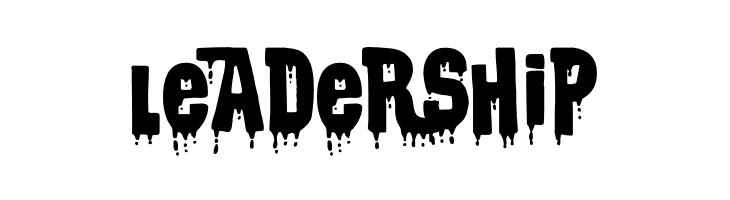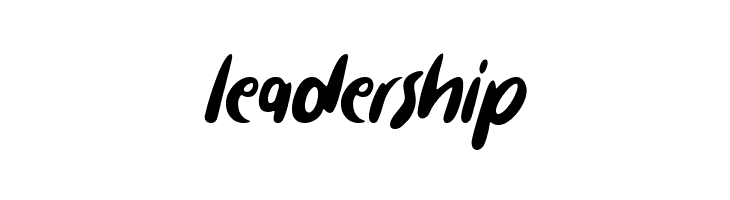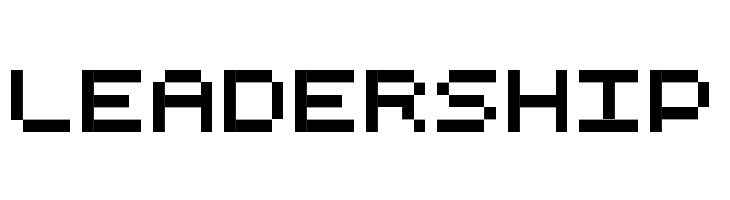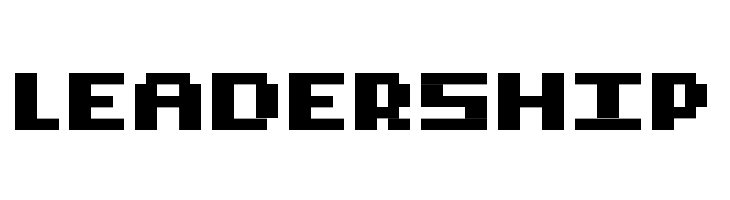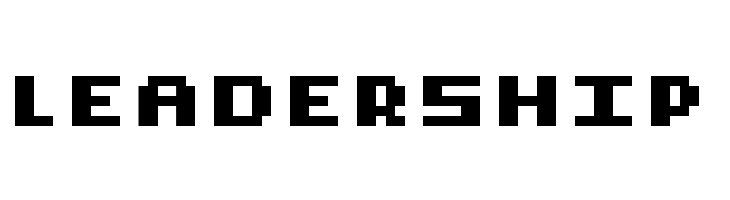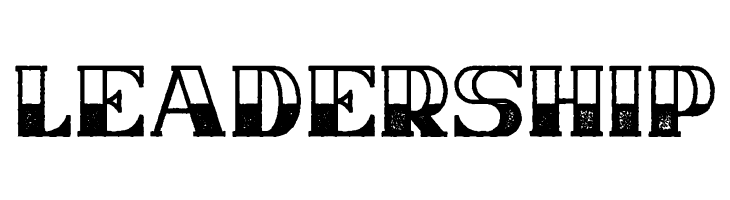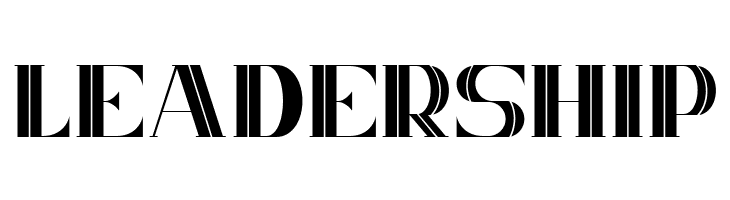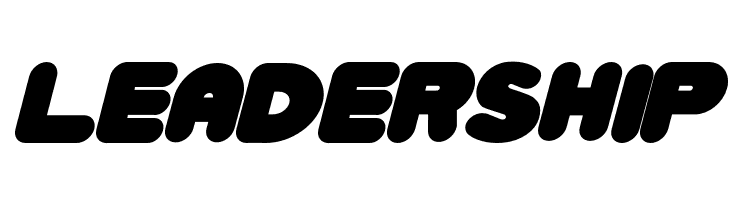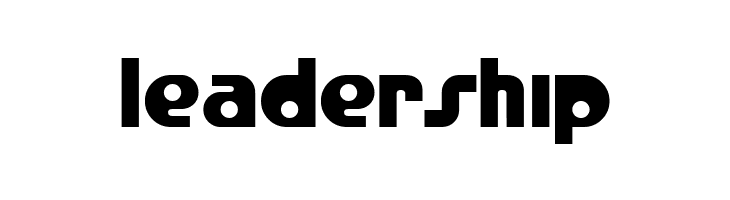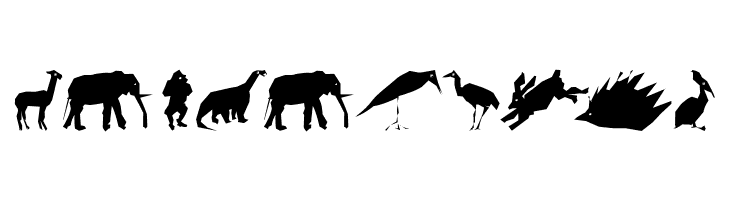
A modern, geometric font with clean lines and a condensed style.
A geometric, angular font with a futuristic, digital display style.
A bold, geometric font with rounded edges and a modern style.
A bold, playful font with star motifs and rounded characters.
A bold, playful font with star motifs in each character.
A bold, playful font with star-shaped cutouts in each character.
A decorative and intricate font with mystical, calligraphic elements.
A bold, geometric font with a retro-futuristic style and strong visual impact.
A rugged, medieval-inspired font with a distressed, hand-crafted appearance.
A bold, distressed font with a rough, textured appearance, perfect for vintage or industrial designs.
A bold, high-contrast font with geometric shapes and dramatic serifs.
A bold, geometric font with a futuristic and technical design.
A modern, italic font with geometric, angular design and dynamic slant.
A bold, dripping font with a spooky, horror-themed style.
A bold, dripping font perfect for horror-themed designs.
A bold, gothic-inspired font with sharp, angular edges and dramatic serifs.
A pixelated, italic font with a digital, futuristic style.
A bold, boxed font with geometric, grid-like characters.
A bold, playful script font with a chunky, dynamic style.
A bold, decorative font with artistic flair and dynamic letterforms.
A bold, pixelated font with a retro, video game-inspired design.
A bold, geometric font with a cubic, blocky design.
A pixelated, geometric font with a retro digital vibe.
A pixelated, monospaced font with a retro digital aesthetic.
Cubist animal silhouettes form each character in a decorative display style.
A bold, geometric font with a blocky, futuristic style.
A bold, 3D cube font with a playful and modern geometric style.
A dot-matrix style font with a digital, LED display appearance.